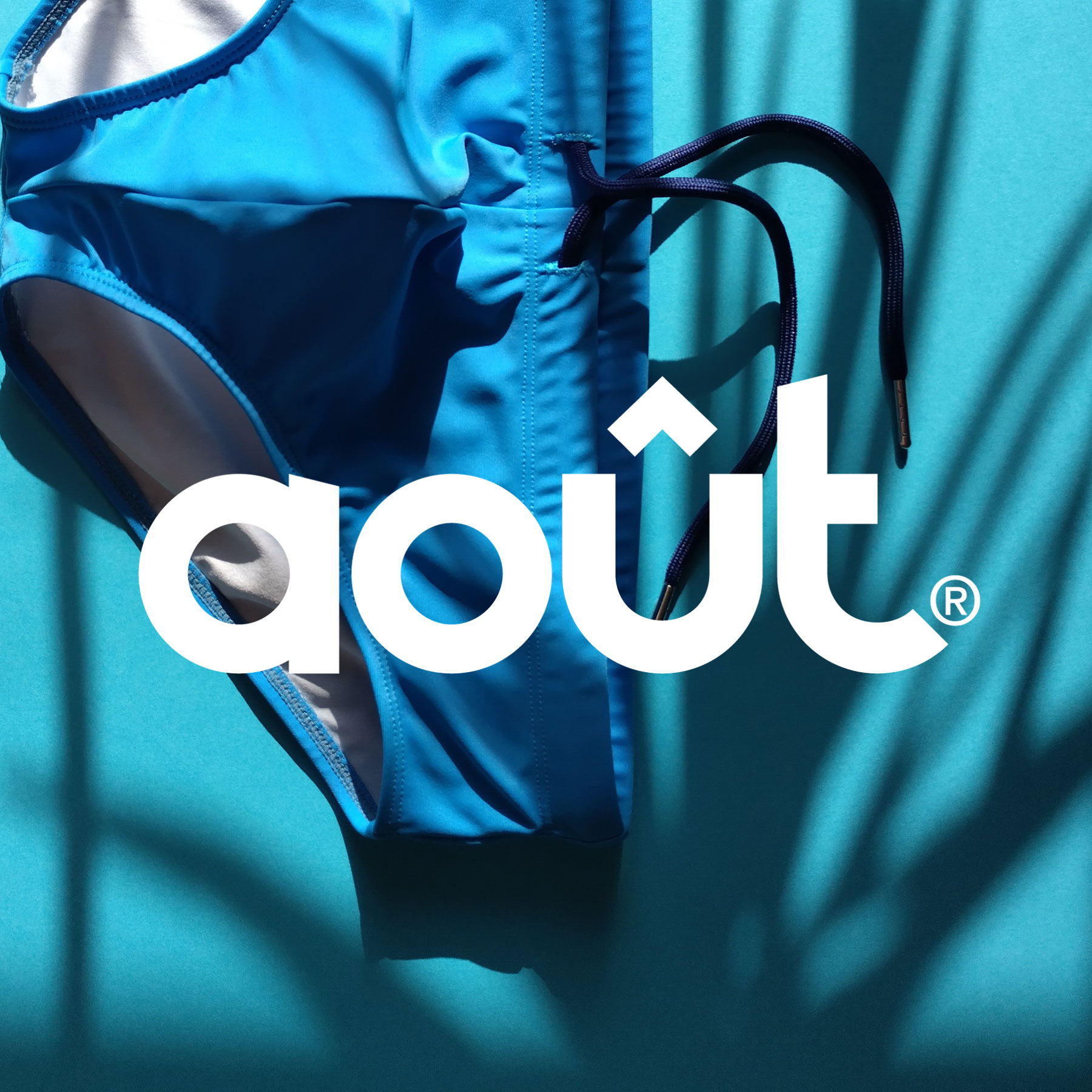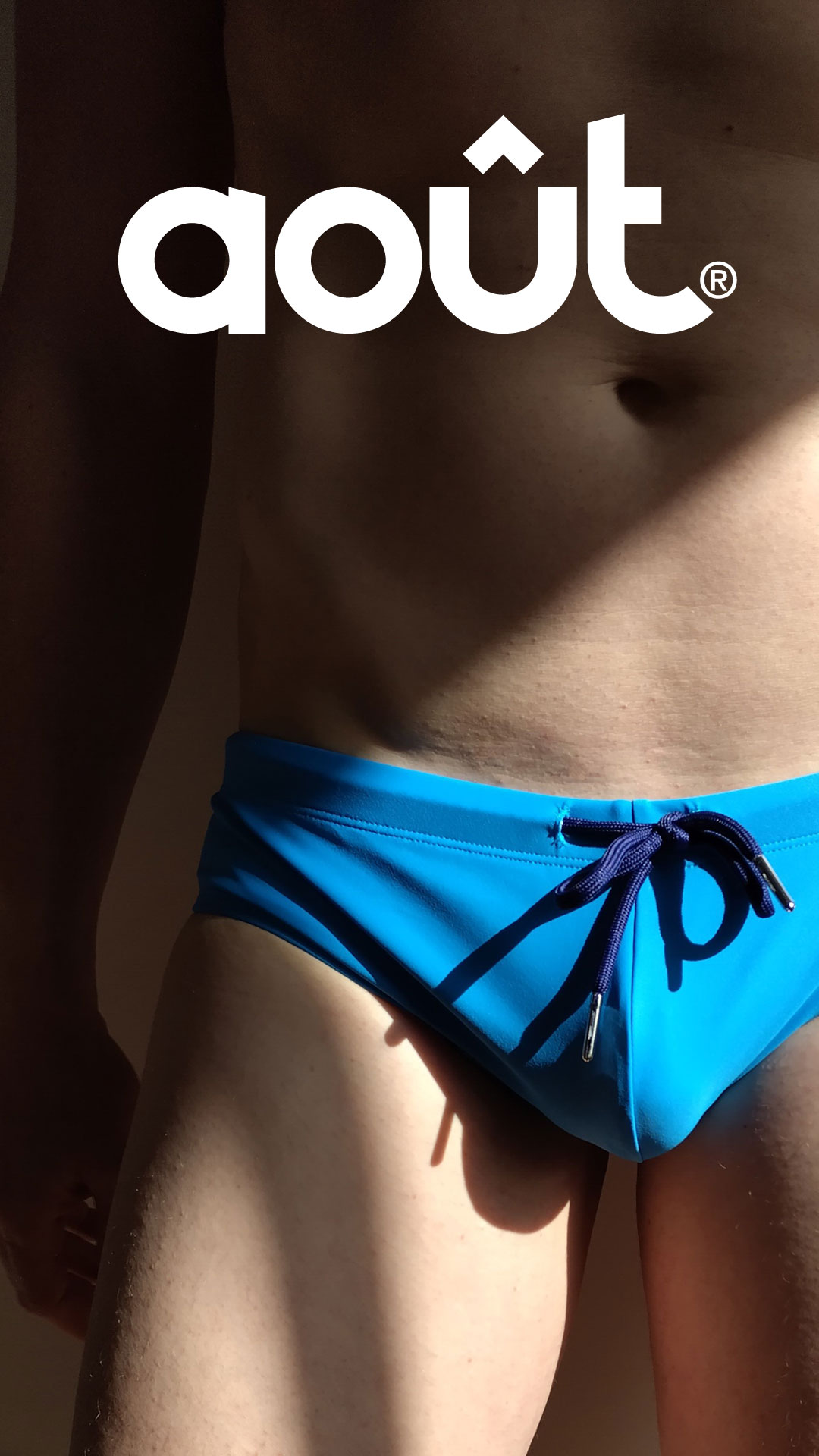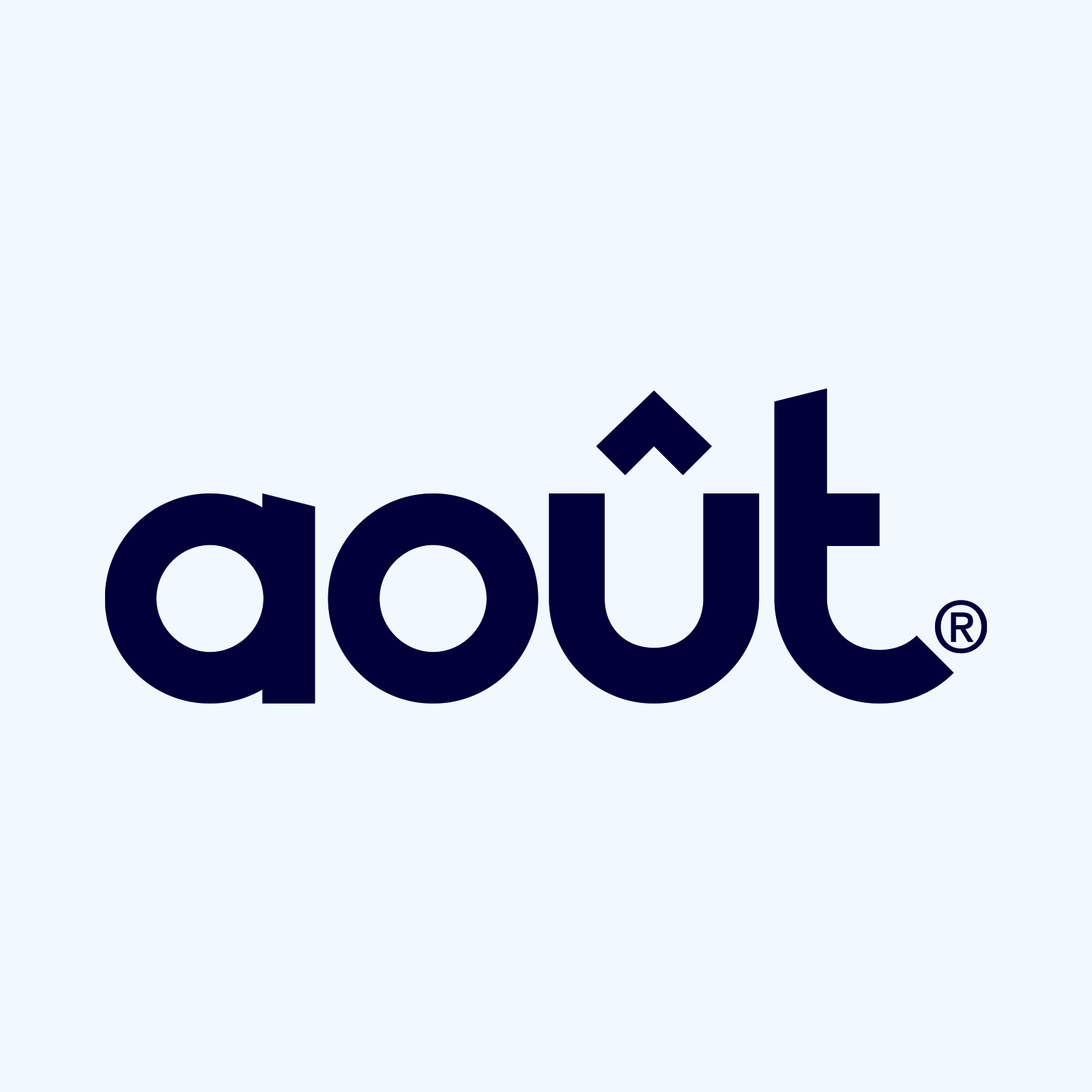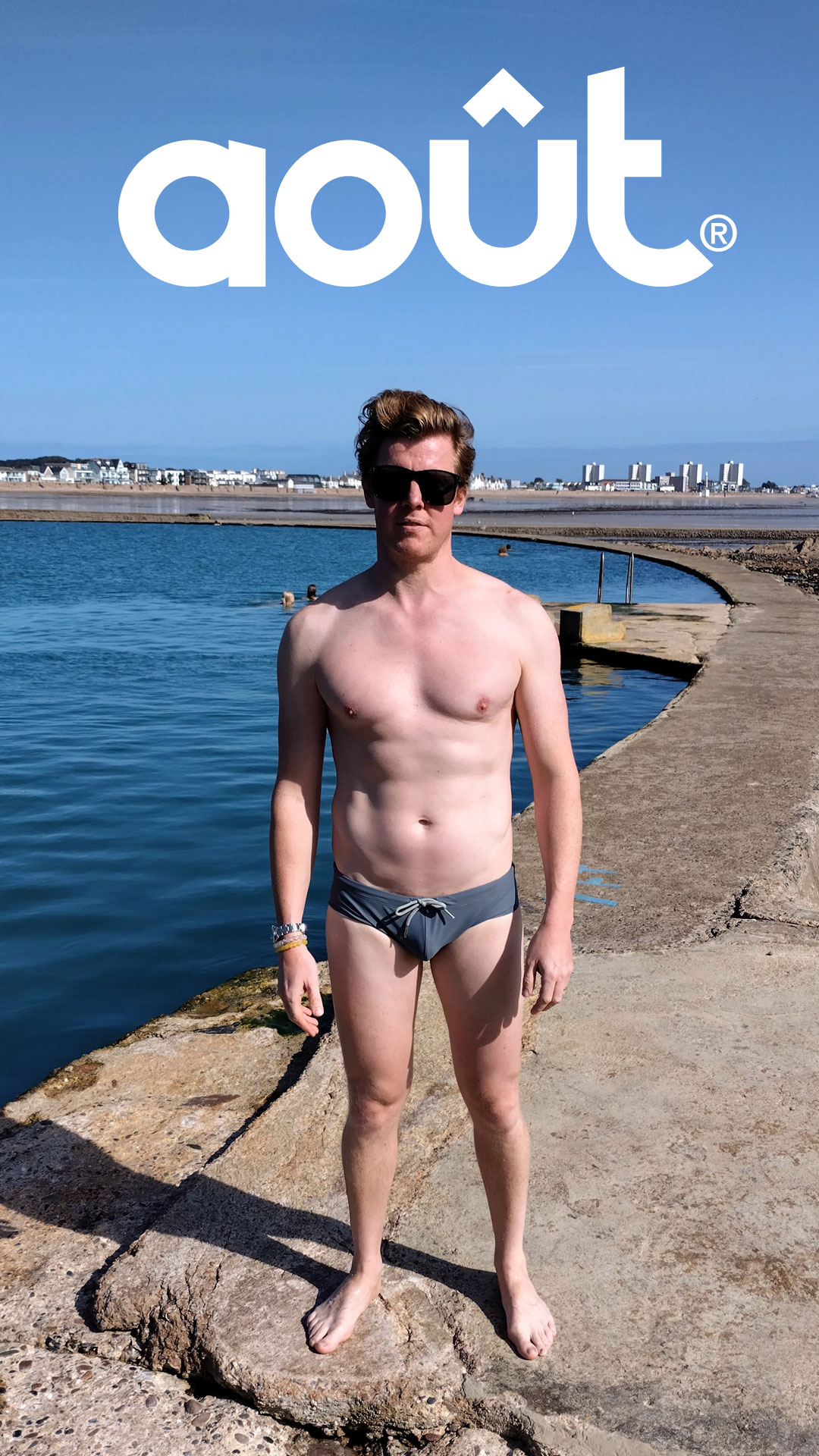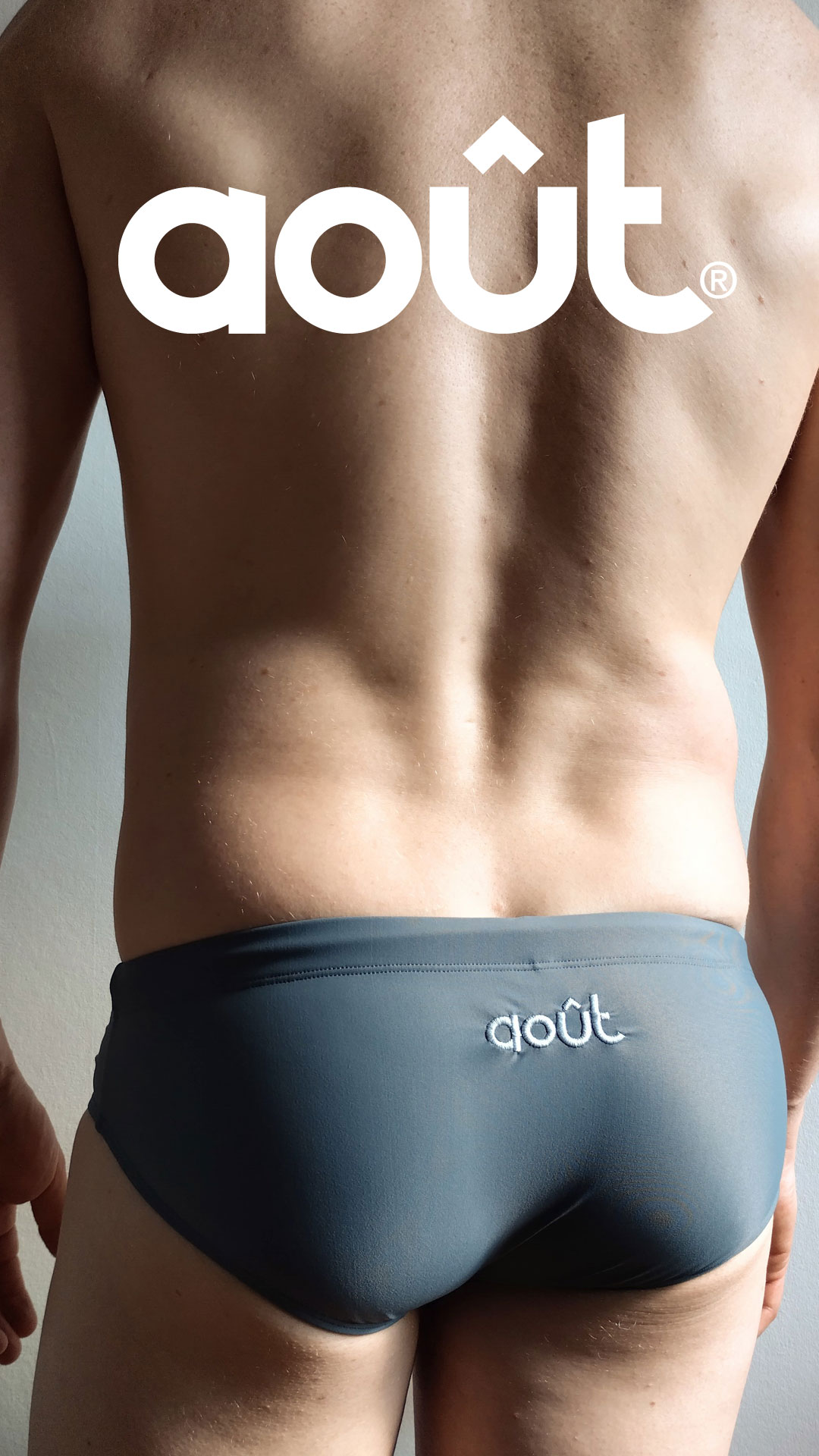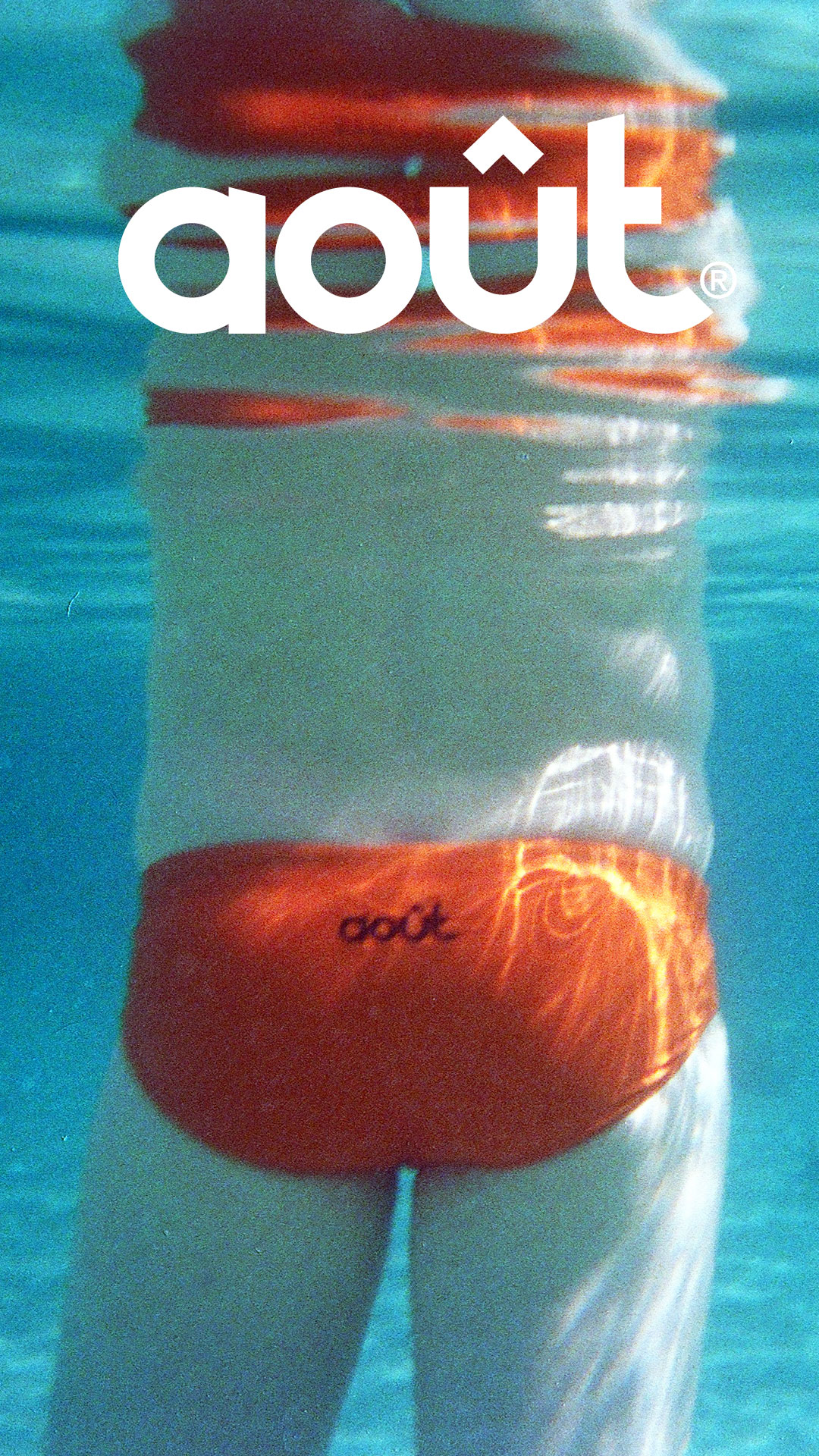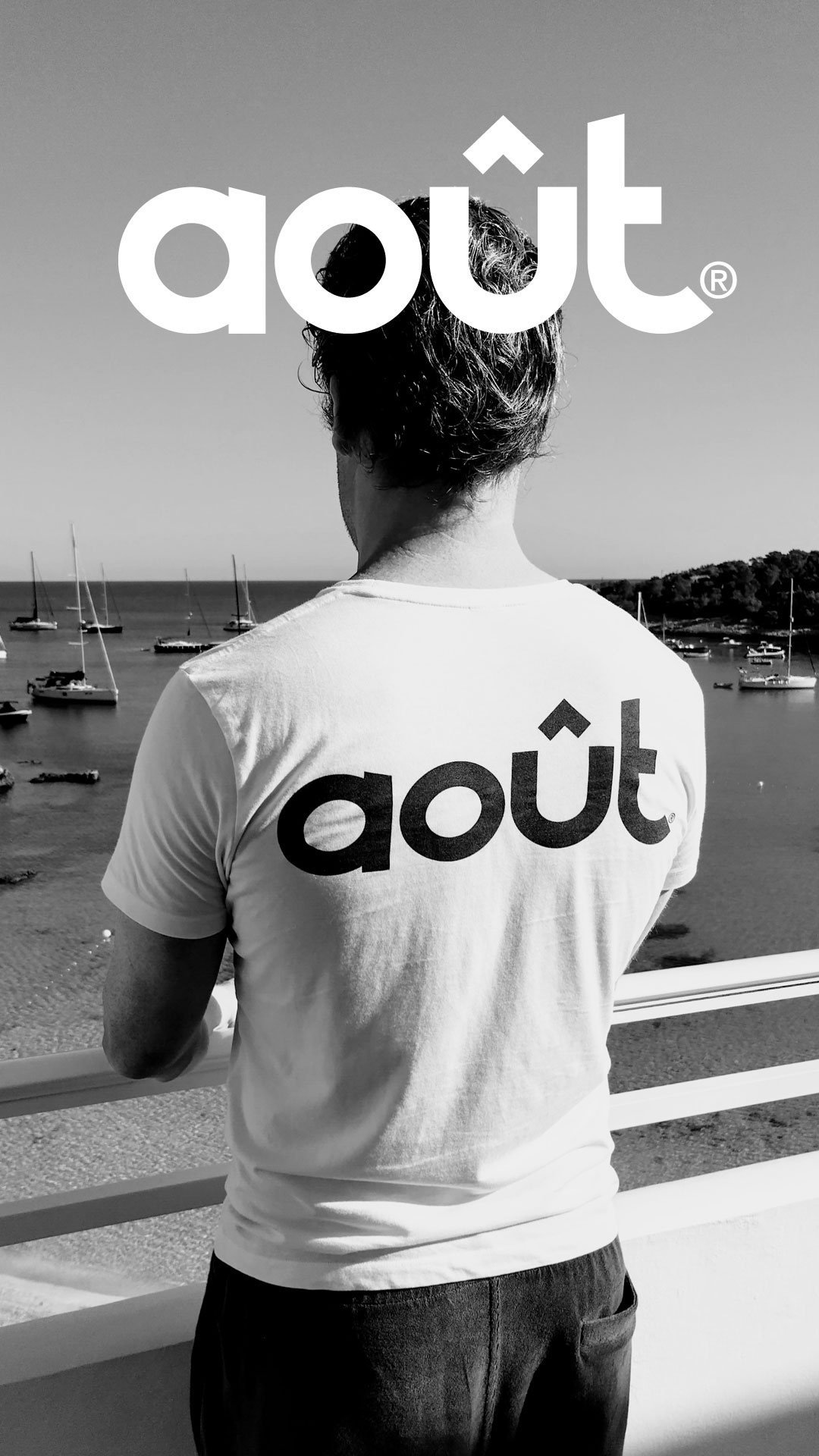
Logo design, branding and creative direction for a swimwear company created by Tom founder of GA&T.
Août is August in French - pronounced ‘oot’. The circumflex establishes angles that are then subtly echoed across the other geometric letters. Août is now a registered trademark.